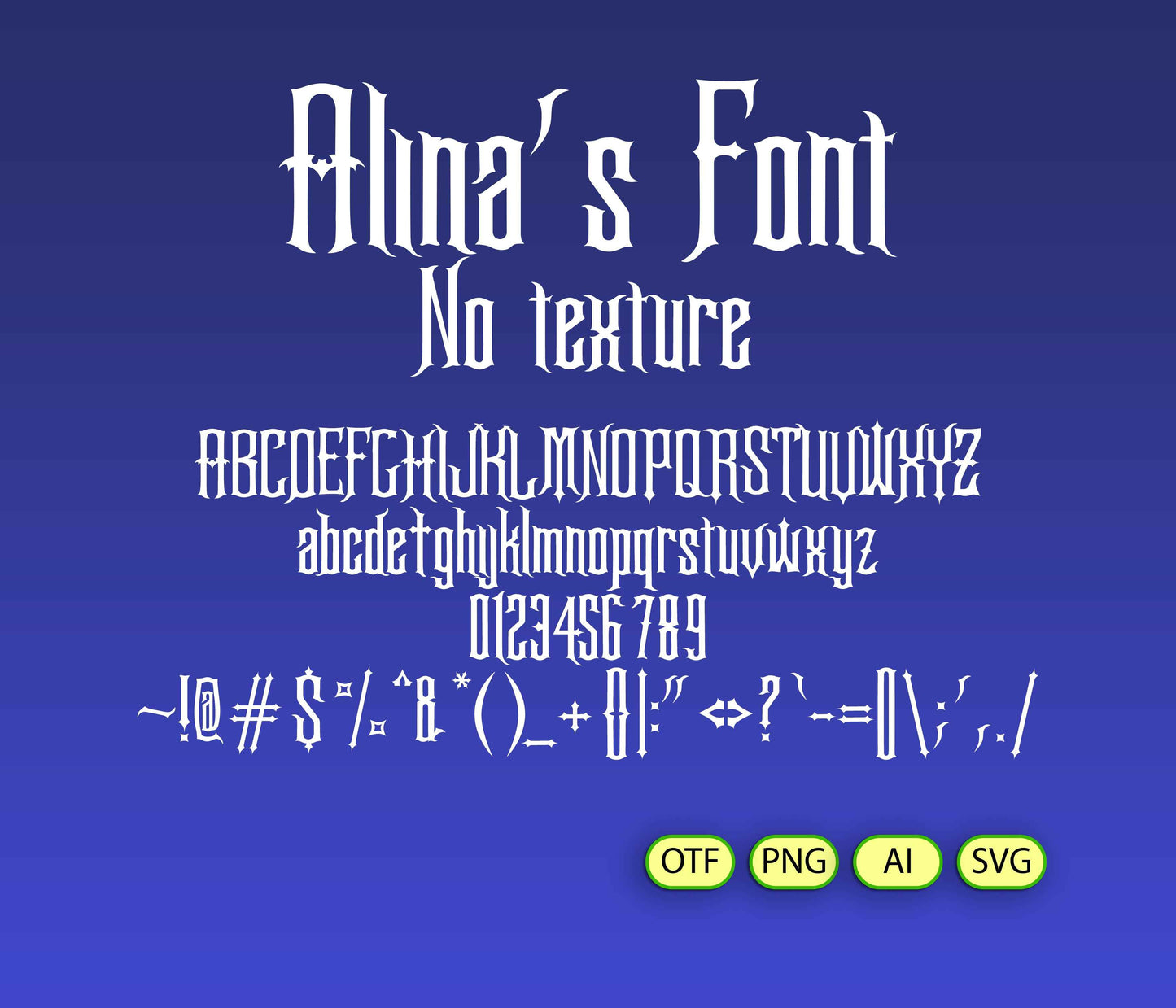
Haunted Estate Font
Enter the Enigmatic World with the Haunted Estate Font
Step into the timeless, eerie elegance of the Haunted Estate with our specially designed font. Perfect for fans of gothic sophistication and designers seeking to evoke its haunting allure, this font captures the mysterious and ghostly essence of an iconic haunted attraction. Whether you're creating event invitations, designing themed merchandise, or crafting digital content, our font ensures your projects are infused with the ghostly allure and vintage charm of the Haunted Estate.
Our Haunted Estate-inspired font features ornate, Victorian-style lettering with intricate details that reflect the architecture and ambiance of a classic haunted mansion. This versatile font is ideal for a variety of applications:
Our Haunted Estate font not only pays homage to the eerie charm of classic haunted attractions but also empowers you to infuse your designs with a sense of gothic elegance and supernatural mystery. Whether you’re crafting promotional materials, designing unique merchandise, or adding a haunted touch to personal projects, this font allows you to communicate with the timeless and enchanting spirit of the Haunted Estate. Ready to bring a touch of the macabre to your creative endeavors? This font is your key to unlocking a world of gothic sophistication and spectral beauty.